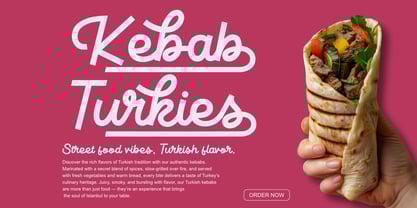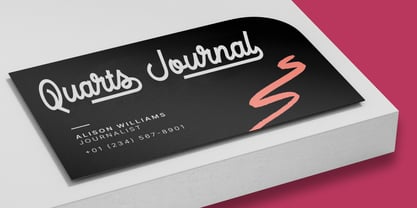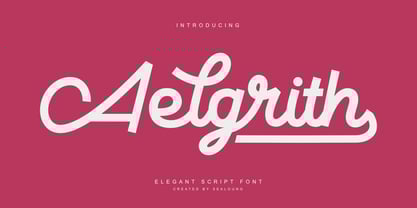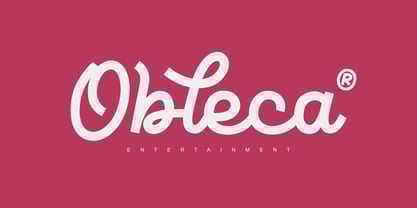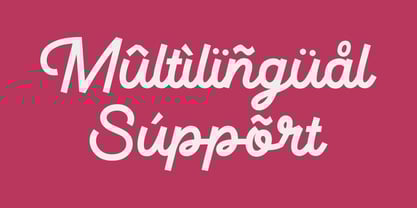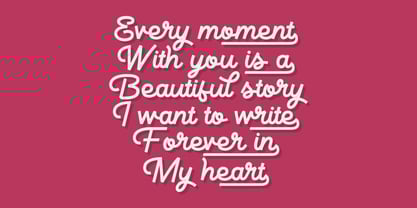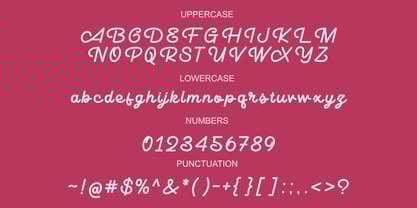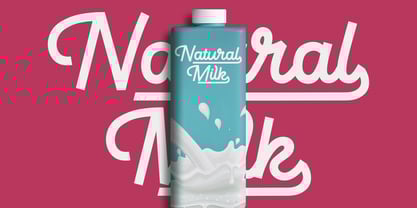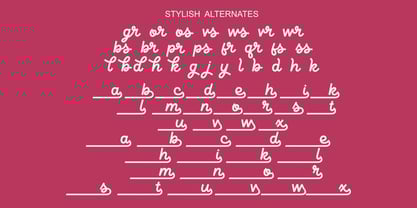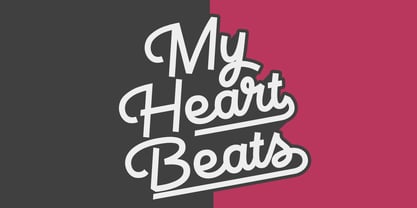
Aelgrith
by Sealoung
The Aelgrith Font Family was designed by Saiful Anwar and published by Sealoung. Aelgrith contains 1 styles. More about this family
Aelgrith is an elegant script font that effortlessly enhances the aesthetic of any project. With its refined strokes and graceful curves, this typeface is perfect for logos, branding, and cover designs, allowing your creative vision to shine through. The font offers over 300 unique glyphs, ensuring versatility and enabling multilingual communication, making it an ideal choice for global brands.
Crafted with stylistic alternates, Aelgrith allows for personalized touches that can elevate your design projects. Whether you're aiming for a luxurious feel in a wedding invitation or a sophisticated touch for a high-end product label, this font adapts beautifully to your needs. With Aelgrith, you can create a memorable and striking visual identity that resonates with your audience, making every word not just read, but felt.
About Sealoung
My name is Saiful Anwar, We live in Mojokerto, Indonesia. We started my type foundry studio called Sealoung Studio in 2020. Sealoung is a Type Design Studio that makes unique fonts for your business purpose. We are always interested and focused on aesthetics, functionality, legibility, suitable for branding and broad design purposes. When creating a font, we usually start by exploring the characters first. Most of the time we draft letters by drawing them until it gets a character that has a deep personality. His works span a variety of styles and themes and have been trusted by major, local and international companies. Let's be a friend and follow us to get our products updates. Thank You!